Transform your text into elegant East Asian-inspired style with our free Chinese font generator! Perfect for creating designs with the aesthetic beauty of traditional Chinese calligraphy and brush strokes. Our tool features English characters styled with the graceful elements found in Chinese typography and design traditions.
Tiger Clan
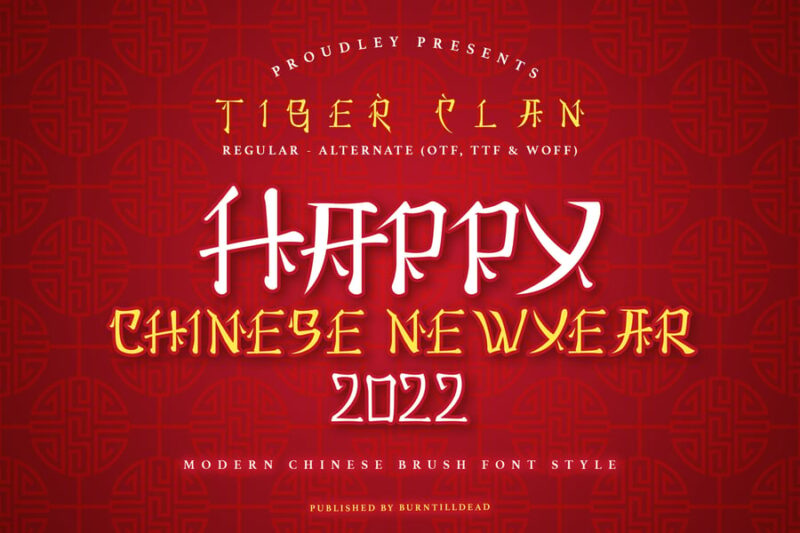
Tiger Clan is a bold, dynamic typeface perfect for designers seeking an authentic Asian aesthetic in their projects. This distinctive font works exceptionally well with Chinese font generators and design tools, offering a modern interpretation of traditional Chinese typography. Its strong character design makes it ideal for branding, headlines, and creative projects that require cultural authenticity.
Gekkai Chinese Creative Font
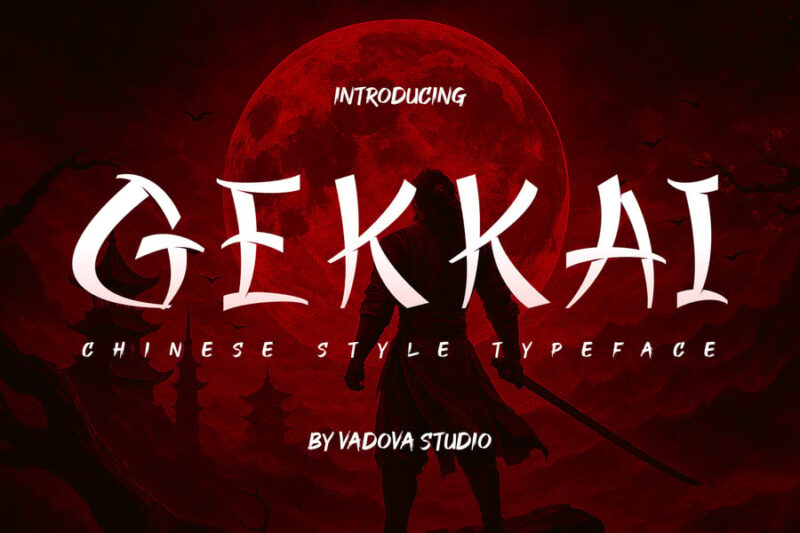
Gekkai Chinese Creative Font delivers an innovative blend of contemporary design with traditional Chinese calligraphy elements. This versatile typeface is an excellent addition to any Chinese character generator toolkit, providing graphic designers with authentic-looking characters for digital and print applications. The font’s creative styling makes it perfect for modern branding projects that need to balance cultural heritage with contemporary appeal.
Chinesse World – Chinese Decorative Font
Chinesse World offers an ornate, decorative approach to Chinese-inspired typography that’s ideal for luxury branding and ceremonial designs. When used with Chinese font generation software, this typeface creates stunning visual impact for restaurant menus, cultural event materials, and premium packaging designs. Its elaborate decorative elements capture the elegance and sophistication associated with traditional Chinese artistic traditions.
Chinese Shangai – Asian Font
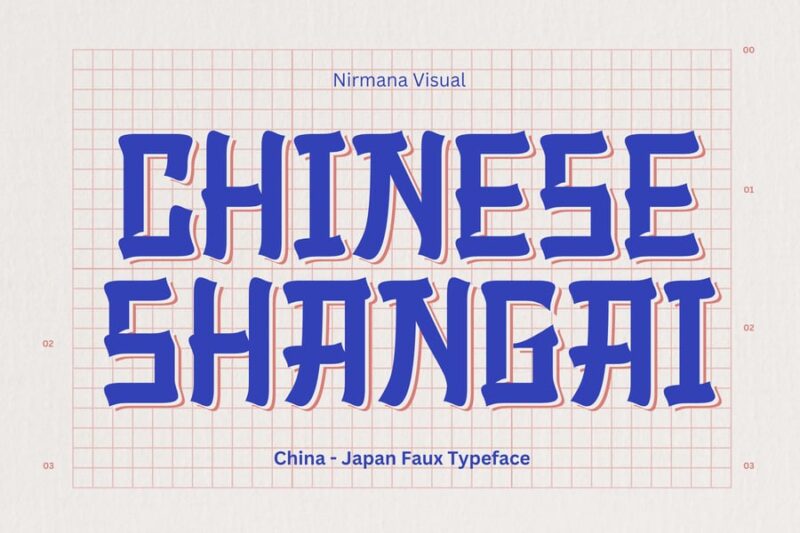
Chinese Shangai captures the metropolitan energy and cosmopolitan spirit of modern Asia in its sleek, urban-inspired design. This Asian font pairs beautifully with Chinese text generators for creating contemporary marketing materials, tech startups, and modern cultural projects. Its clean, sophisticated letterforms reflect the dynamic fusion of East and West that defines Shanghai’s architectural and cultural landscape.
Create Typography Inspired by Eastern Artistry
Popular Uses for Chinese-Style Typography
Looking to honor East Asian aesthetic traditions in your designs? Our Chinese-style fonts bring elements of traditional brush calligraphy to English text, creating a respectful fusion of Eastern visual beauty and Western alphabets. Here are thoughtful ways our users employ this cross-cultural style:
- Asian restaurant menus and signage
- Cultural celebration and Lunar New Year materials
- Martial arts studio branding and certificates
- Tea house and traditional business identity
- Cultural education and appreciation projects
- East-West fusion event materials
- Respectful homage to Chinese design aesthetics
Why Choose Our Chinese-Style Font Generator?
- Culturally Respectful & FREE: Honors traditional aesthetics
- Live Preview: See your design come together in real-time
- Thoughtful Design: Inspired by authentic calligraphic elements
- Instant Download: High-quality files ready for use
- Versatile Application: Suitable for various respectful purposes
About Chinese-Inspired Typography
These fonts take inspiration from the elegant brush strokes and balanced composition of traditional Chinese calligraphy, adapting these aesthetic principles to the Latin alphabet. It’s important to note that these are NOT actual Chinese characters—they are English letters designed with visual elements reminiscent of East Asian typography and brush painting traditions.
A Note on Cultural Respect
Chinese calligraphy is an ancient and revered art form with thousands of years of history, deep philosophical meaning, and cultural significance. Our Chinese-style fonts are meant to appreciate and be inspired by this beautiful tradition, not to replicate or replace authentic Chinese characters. When using these fonts, consider the context and ensure your application shows respect for the culture that inspired the aesthetic.
The Art of the Brush
Traditional Chinese calligraphy emphasizes balance, flow, and the expressive quality of brush strokes. Each stroke has meaning and intentionality. Chinese-style English fonts incorporate these visual principles—the varying line weights, the dynamic angles, and the sense of fluid movement—while rendering familiar Latin letters.
When to Use Chinese-Style Fonts
These fonts work well for businesses and projects that authentically connect to Chinese or East Asian culture: restaurants serving traditional cuisine, martial arts schools teaching Chinese disciplines, cultural centers, and educational materials about East Asian traditions. They’re less appropriate for random “exotic” decoration or contexts that might trivialize the rich cultural heritage they reference.
Important Note
Our generator creates English text with Chinese-inspired styling, not actual Chinese characters. For authentic Chinese language typography, please use proper Chinese fonts with real characters. When using Chinese-style English fonts, do so with cultural awareness and respect for the traditions that inspire the aesthetic.
Create with Cultural Appreciation
Ready to design typography that honors East Asian aesthetic traditions? Use our generator thoughtfully for projects that genuinely connect to Chinese culture and show respect for its artistic heritage. Beautiful design works best when it comes from a place of appreciation and understanding.
Transform your text with Chinese-inspired style today – where Eastern artistic tradition meets Western letterforms with respect and beauty.